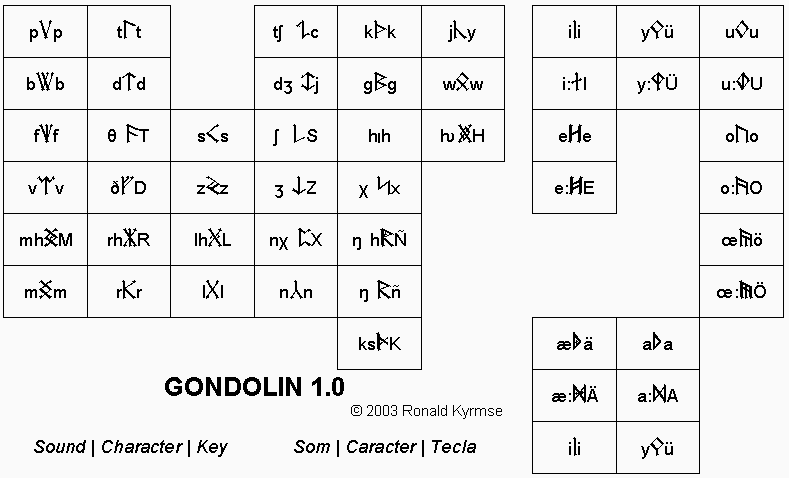
Gondolinic Rune Font The font Gondolin 1.0 reproduces some of the Gondolinic Runes described by Tolkien. Please note that it is still experimental! |
Fonte de Runas Gondolínicas A fonte Gondolin 1.0 reproduz algumas das Runas Gondolínicas descritas por Tolkien. Por favor considere que ela ainda é experimental! |